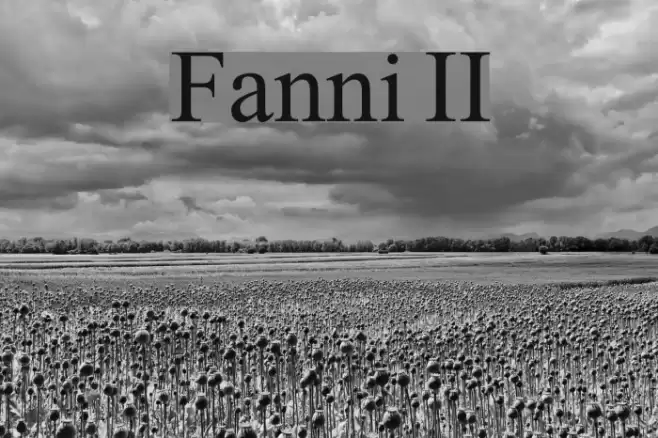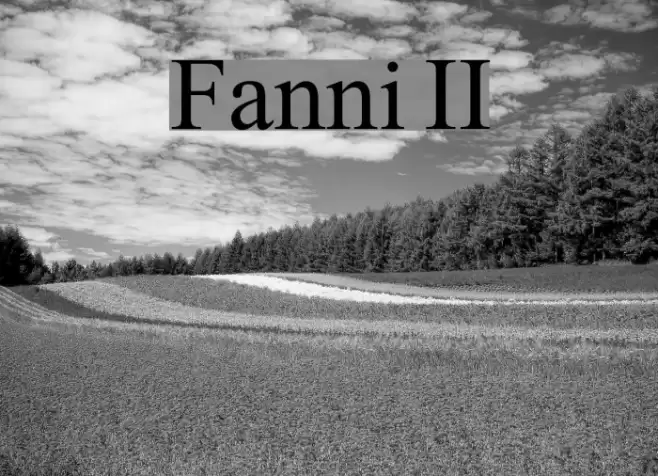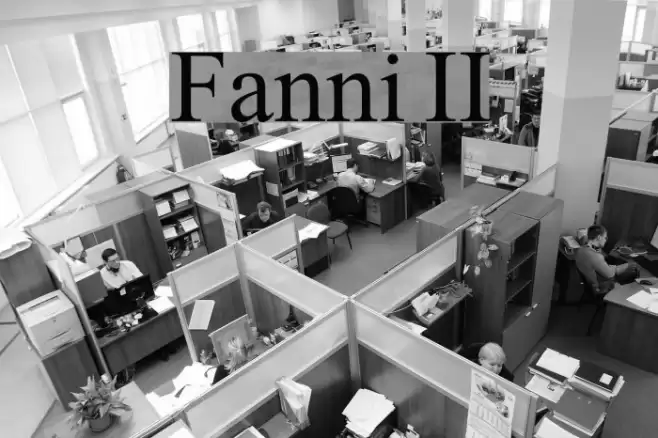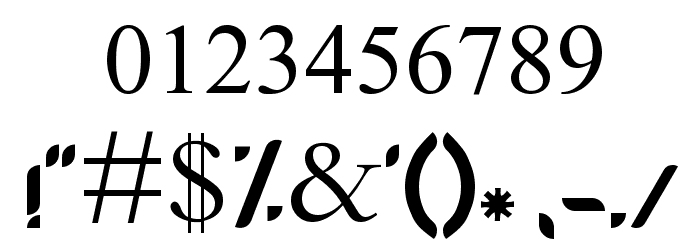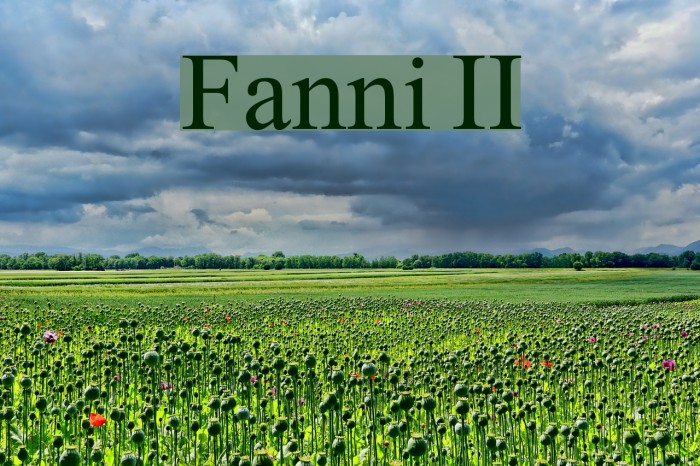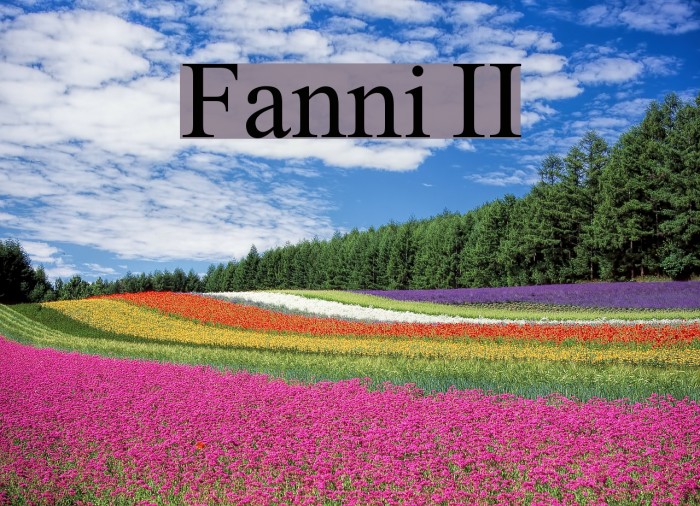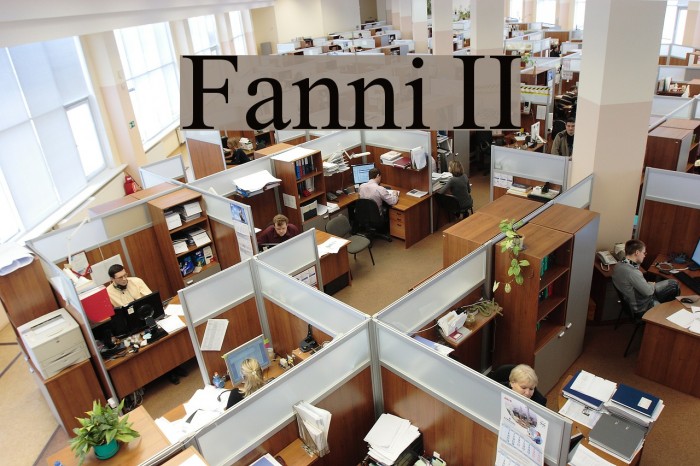
Fanni II Font
Fanni II Description
This font features a classic serif style with elegant, sharp serifs and a balanced proportion. The uppercase letters are bold and commanding, while the lowercase letters maintain a consistent and harmonious flow. The numerals are clear and distinct, making them easily readable. Special characters are well-defined, adding versatility to the font. The overall design exudes a sense of tradition and sophistication, making it suitable for formal and professional applications.
A classic serif font with elegant, sharp serifs and balanced proportions from Uncategorized fonts.
- Proposed Projects: Ideal for editorial design, book covers, formal invitations, and corporate branding.
- Overall Style: Classic